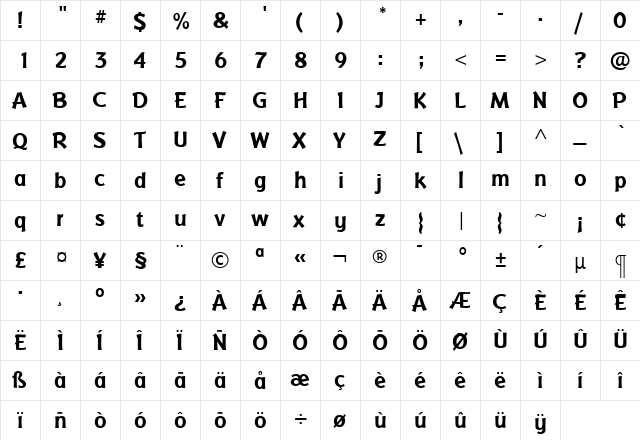
BadgerBold Roman
Design Context for BadgerBold Typeface
BadgerBold offers clean, dependable letterforms without strong stylistic allegiance, making it a practical choice for designers who need flexibility. Its bold stroke weight gives it real presence on the page.